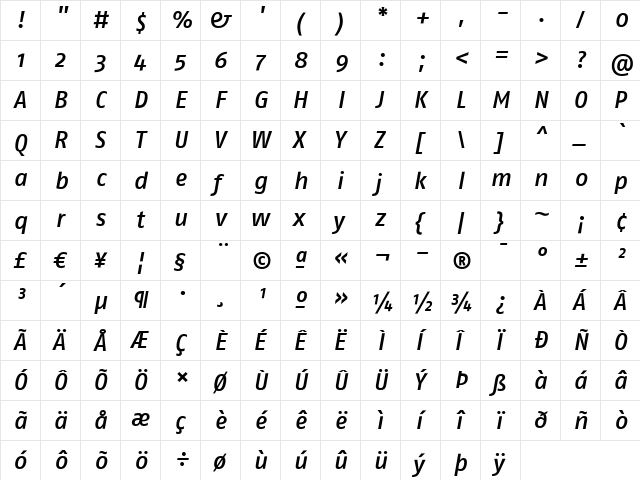
FagoNo ItalicMedium Font Preview
FagoNo ItalicMedium
FagoNo ItalicMedium Font Details
| Style | ItalicMedium |
Design Context for FagoNo Typeface
FagoNo is a composed and adaptable typeface that performs quietly and consistently across a wide range of design contexts. Its italic angle brings a sense of urgency and motion to the letterforms.
Pro Tip: Try FagoNo for annotation and caption copy alongside an upright companion — the contrast in angle creates a dynamic but ordered typographic system.